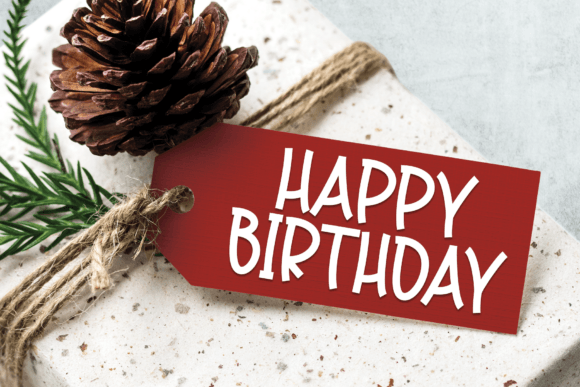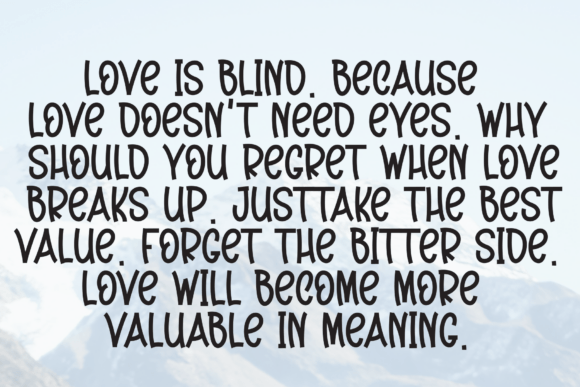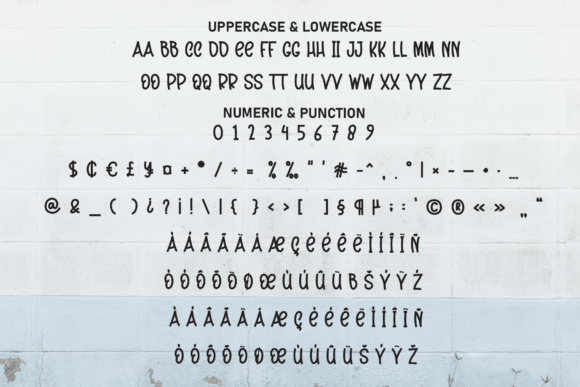
Introduction to Culture Street Font
As designers, we’ve all been there – staring at a blank canvas, trying to bring our creative vision to life. But sometimes, all it takes is one special font to spark that elusive spark. For me, that font is the Culture Street Font. Its elegant, handwritten style has a way of making any design feel instantly inviting and refined.
With its clean lines, smooth curves, and unique details, the Culture Street Font is a design resource like no other. Perfect for logos, invitations, posters, or social media, this high-quality font is a must-have for any creative project. And the best part? It’s available for free download, making it accessible to designers of all levels. Whether you’re working on a professional project or just want to add a personal touch to your designs, the Culture Street Font is an invaluable asset that’s sure to elevate your work.
Key Features of Culture Street Font
- High-quality design resource ideal for creative projects and modern designs
- Unique, modern font style with a blend of sophistication and playfulness
Honest Review: Culture Street Font
I recently had the opportunity to work with the Culture Street Font, and I must say it’s been a great addition to my design resource library. The font is a perfect blend of modern and vintage elements, making it ideal for creative projects that require a touch of elegance.
- ⚠️ Limited character set, which may not be suitable for extended text
- ⚠️ Some users may find the font a bit too ornate for certain design projects
Overall, I’m impressed with the Culture Street Font and would definitely recommend it to designers looking for a high-quality, unique font to add to their design resource library.
The Culture Street Font is perfect for a variety of projects, including branding materials, marketing campaigns, and even personal projects. Its high-quality design makes it an ideal choice for any creative endeavor.